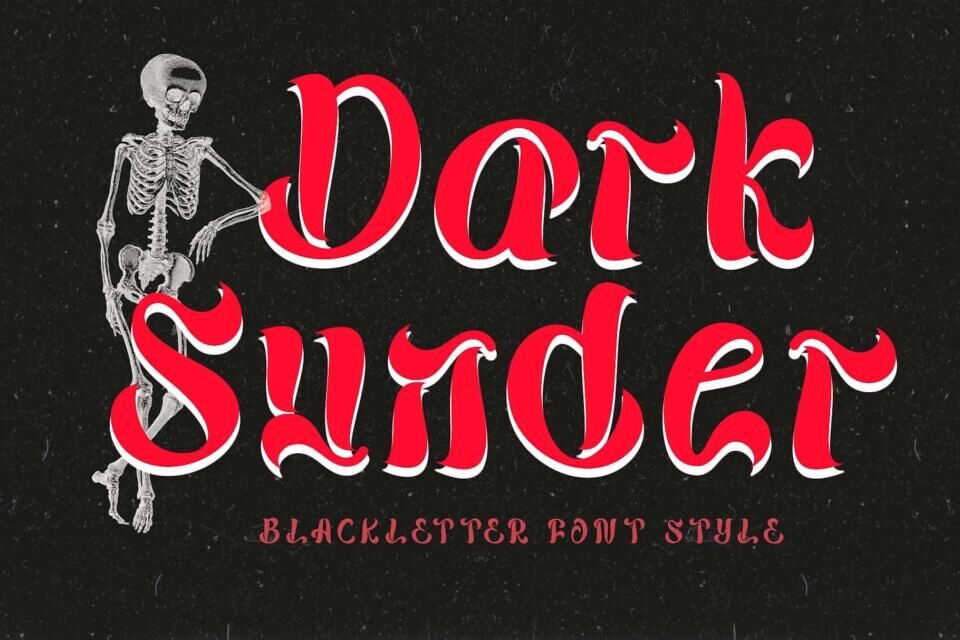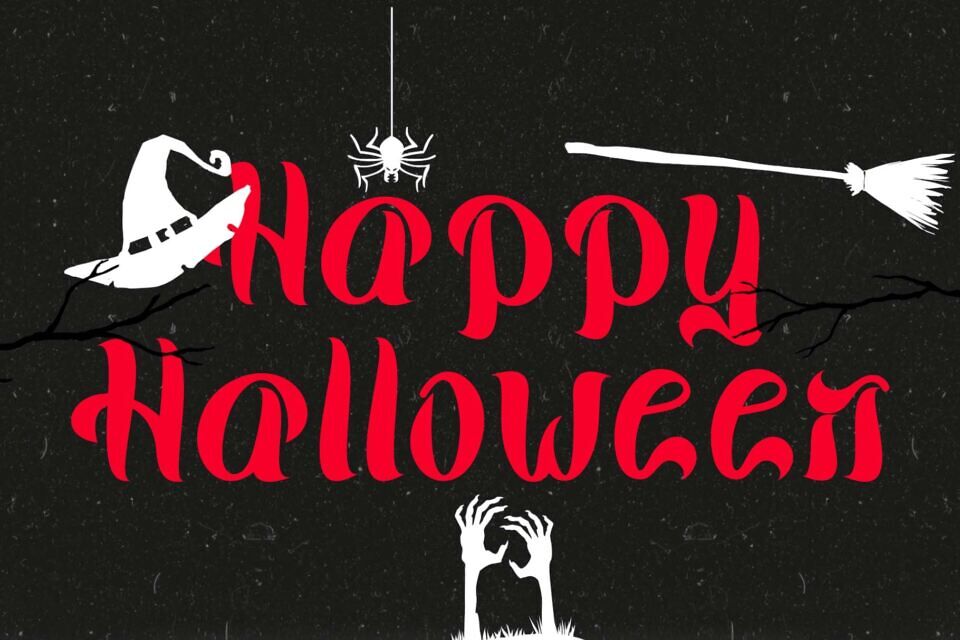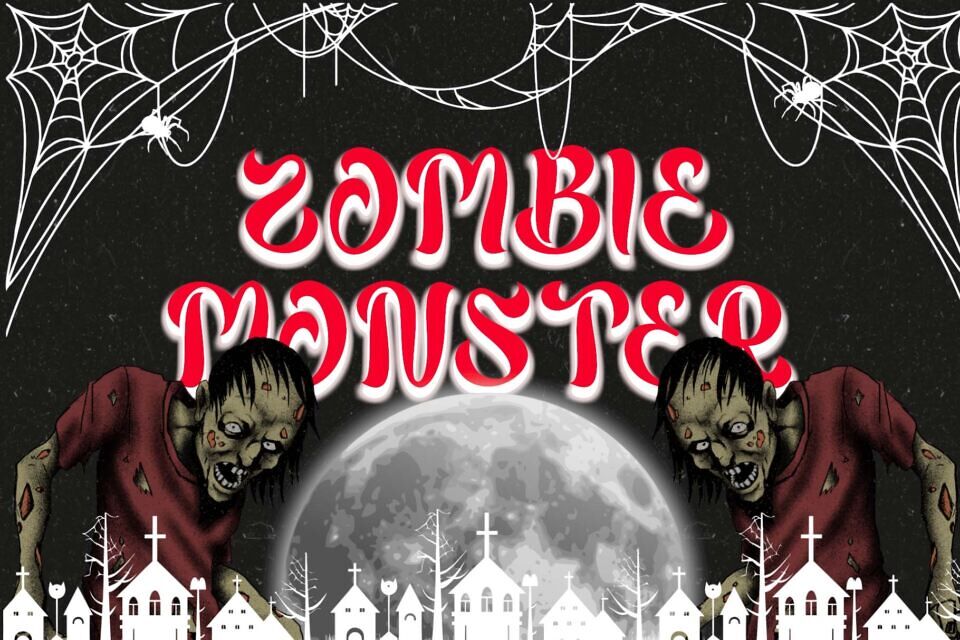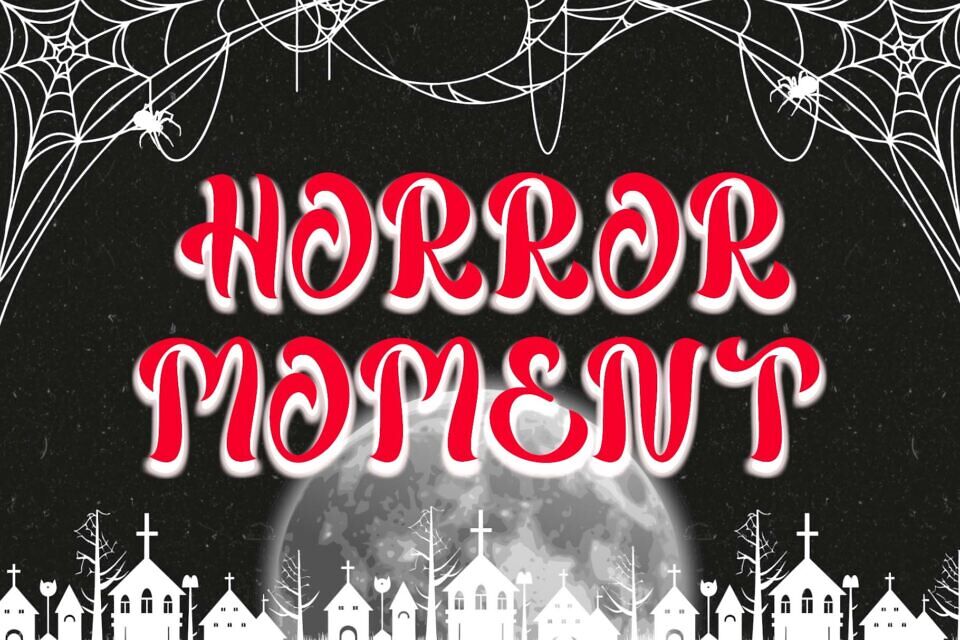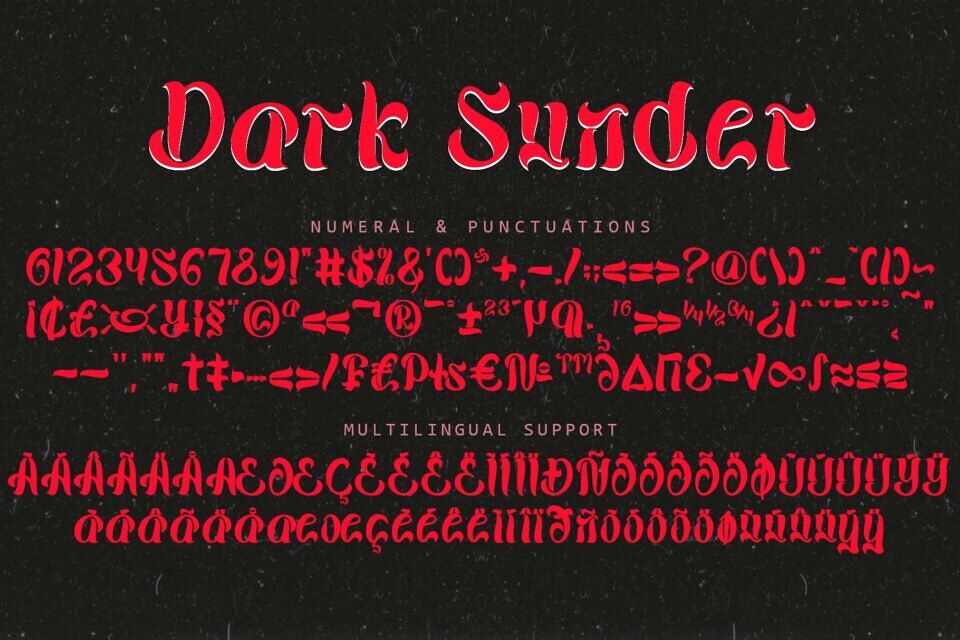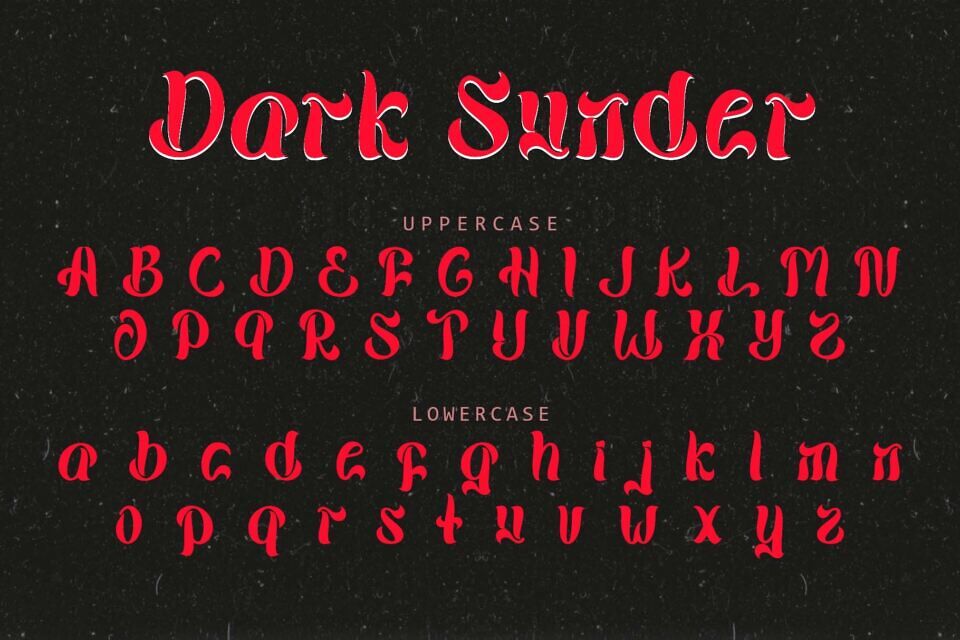
Dark Sunder Font
Dark Sunder is an elegant and modern horror font. This font is equipped with uppercase, lowercase, numerals, punctuations and multilingual support.